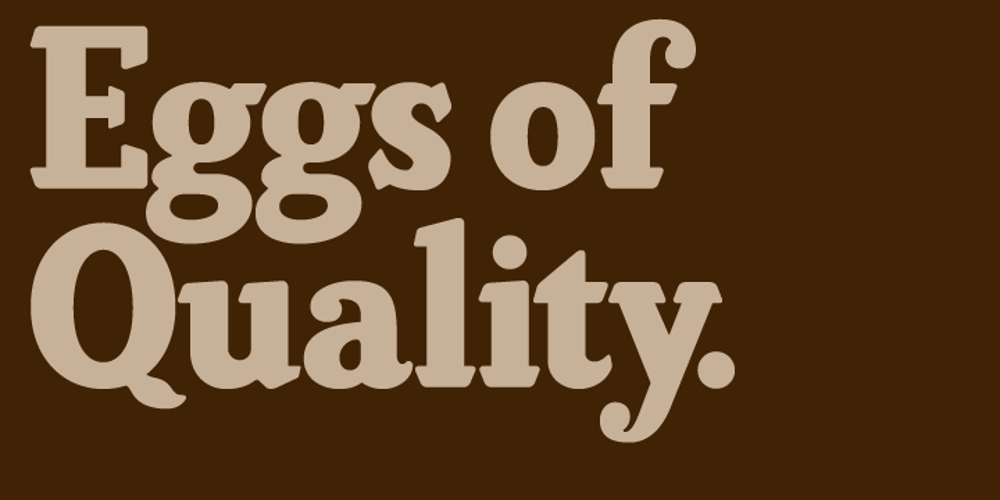
Brunswick Black Font Family was designed by Lan Huang, Claire Ghyzel and published by Letterbox. Brunswick Black contains 1 styles and family package options. Named after its place of birth, Brunswick (Melbourne, Australia), this black display face builds upon the rich heritage of Cooper Black whilst minimizing the more cartoon-like aspects of the original and basing it on a very sturdy broad serif. With its solidity responding well to tight kerning, Brunswick Black features not only small caps but also petite caps.